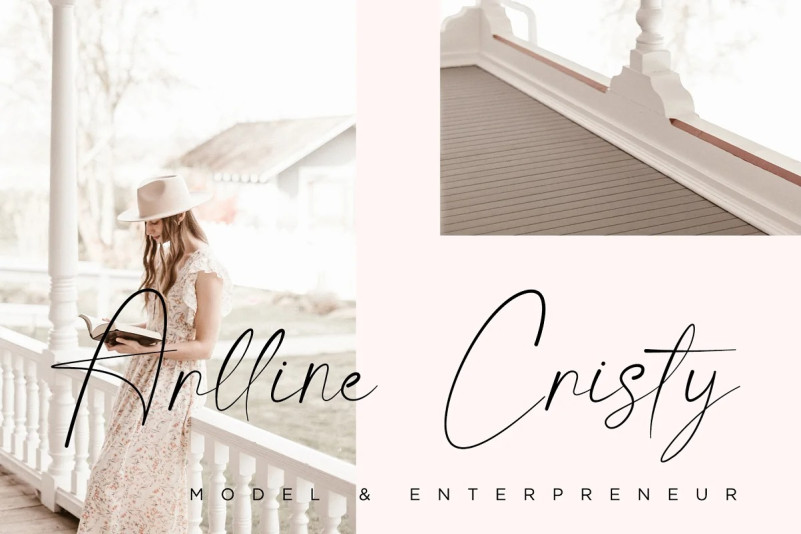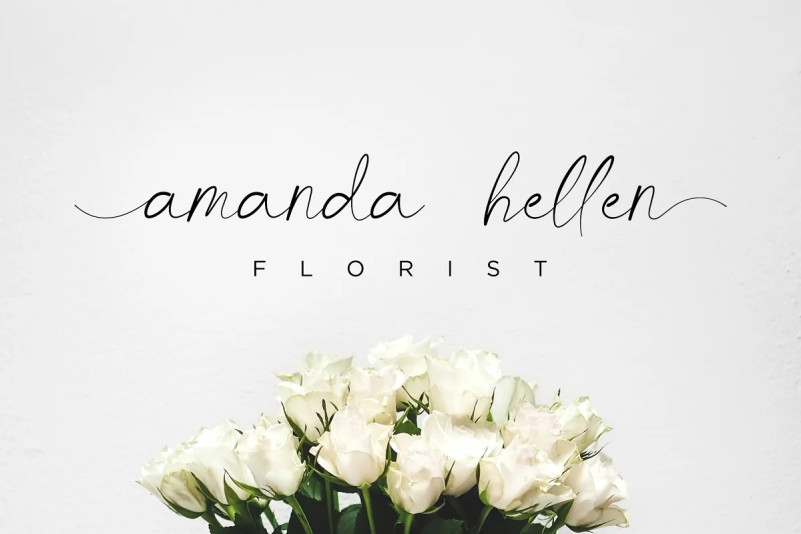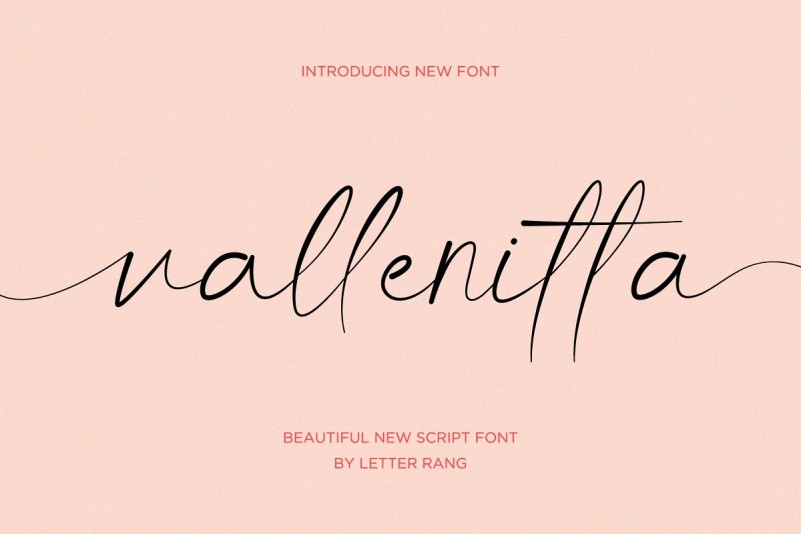
Vallenitta Font
Vallenitta Font is a minimalistic, feminine, and modern script font. This font is perfect for valentine designs, wedding invitation cards, book titles, branding, and more.